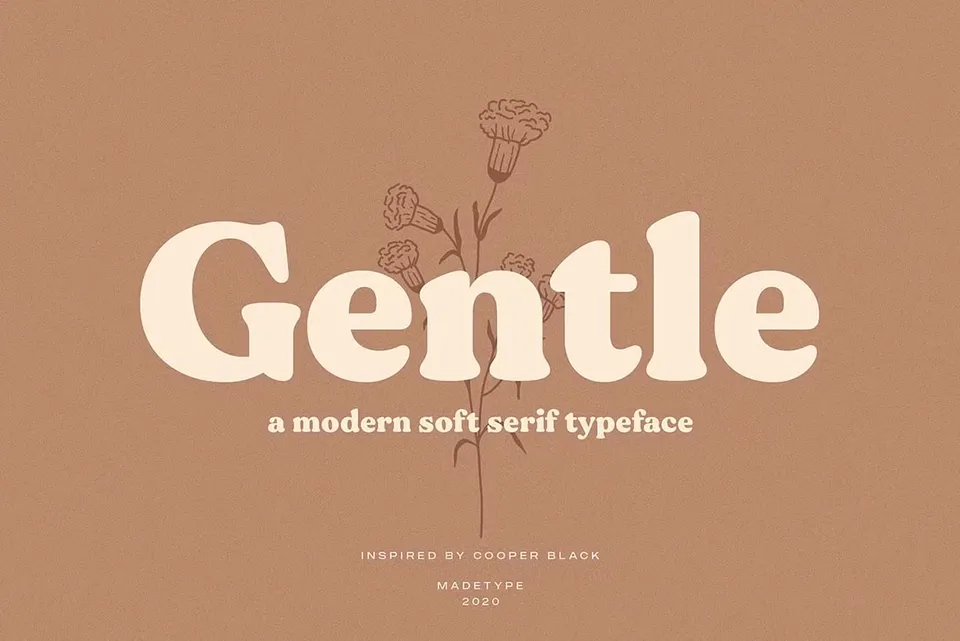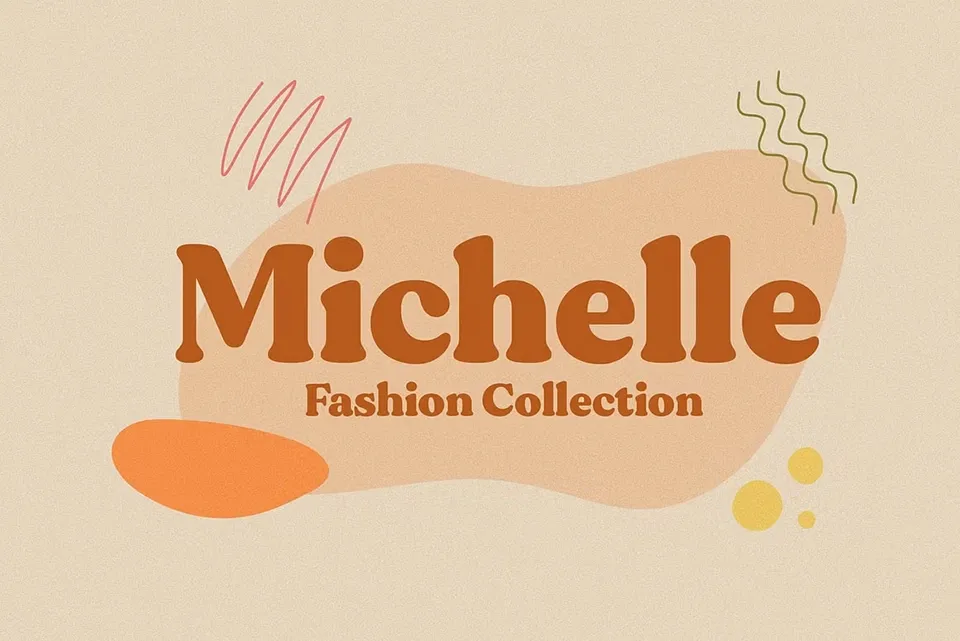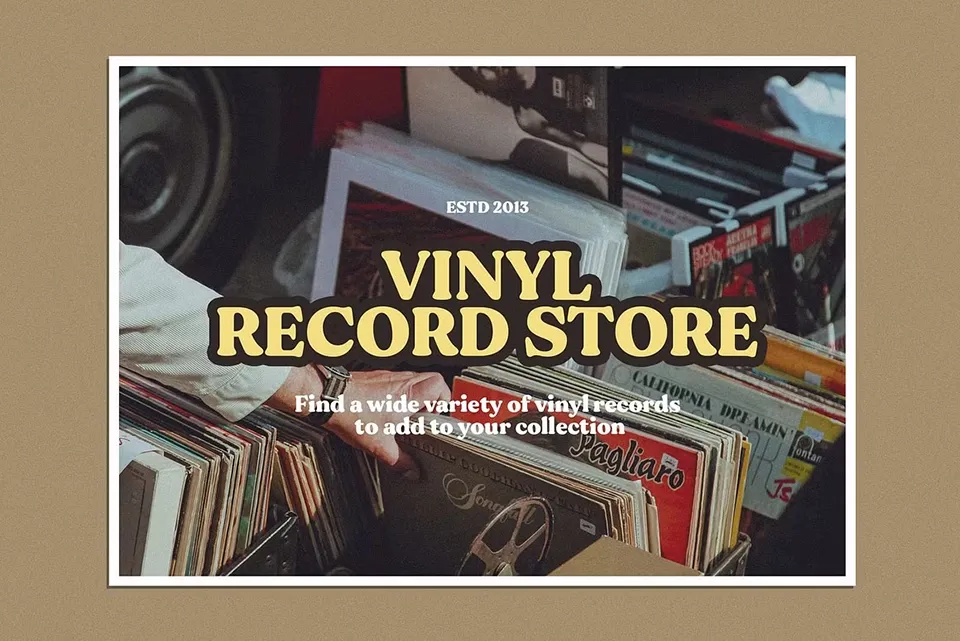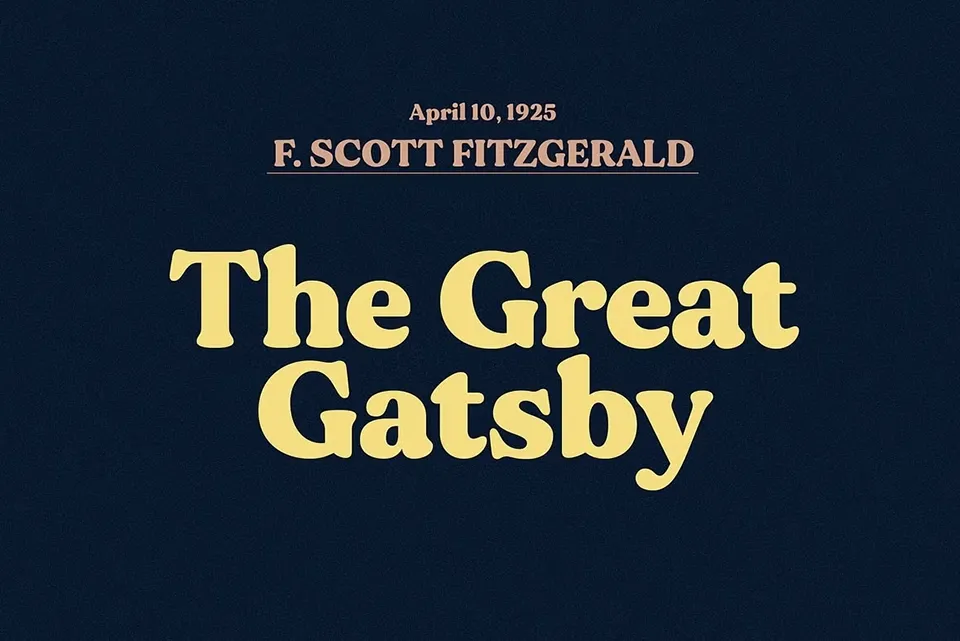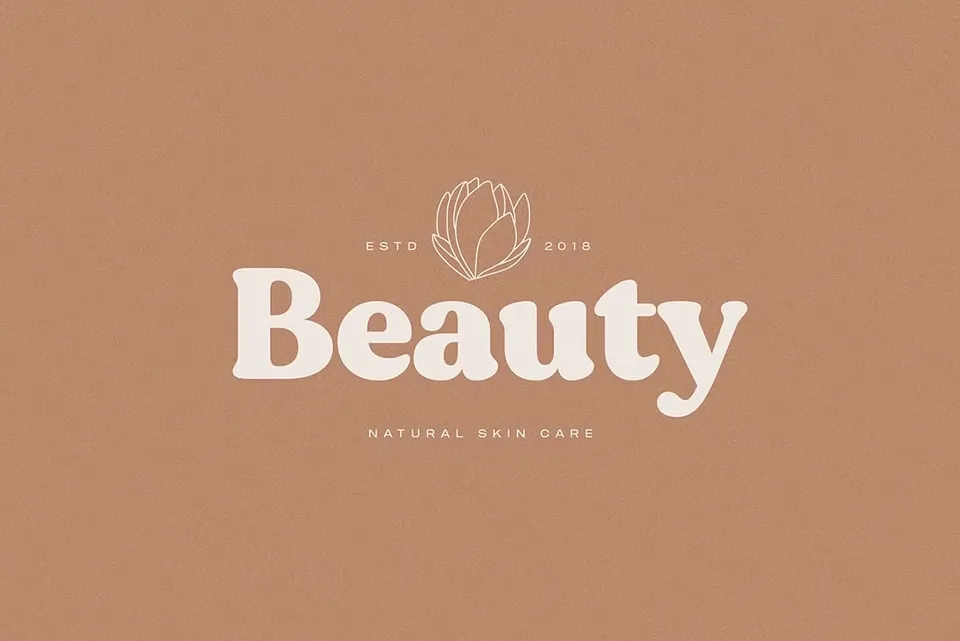
MADE Gentle Serif Font
MADE Gentle Serif Font is a modern soft serif typeface inspired by classic designs like Cooper Black. It features smooth, rounded serifs and a friendly, approachable character, making it perfect for fashion, magazines, branding, photography, invitations, quotes, blog headers, posters, advertisements, postcards, books, and websites. Its versatility and elegance make it ideal for both print and digital projects, adding a touch of warmth and sophistication to any design.